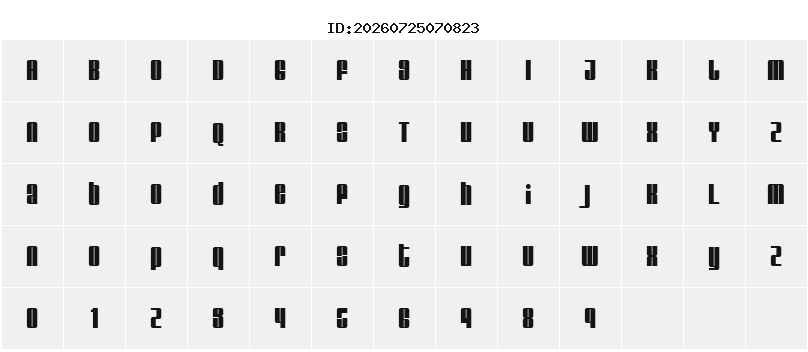
• Font Name: Glare
• Full Font Name: Glare
About Glare.ttf
Glare.ttf is a modern, elegant sans-serif font designed for ultimate readability and visual harmony. Perfect for branding, headlines, web design, and print materials.